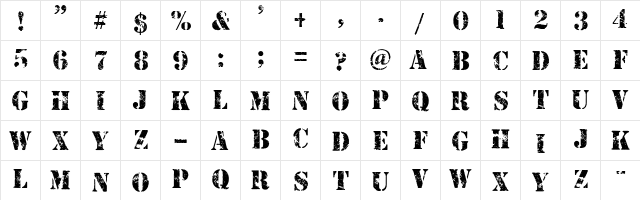
CBX-Armymen Regular
Design Context for CBX-Armymen Typeface
CBX-Armymen has the no-nonsense character of military stencilling and tactical signage, projecting authority and directness.
Designed for tactical branding, military-inspired apparel, action game UI, and utility-focused signage.
Pro Tip: Use CBX-Armymen at medium-to-large sizes where its utilitarian structure can be appreciated — the character detail gets lost at small sizes.